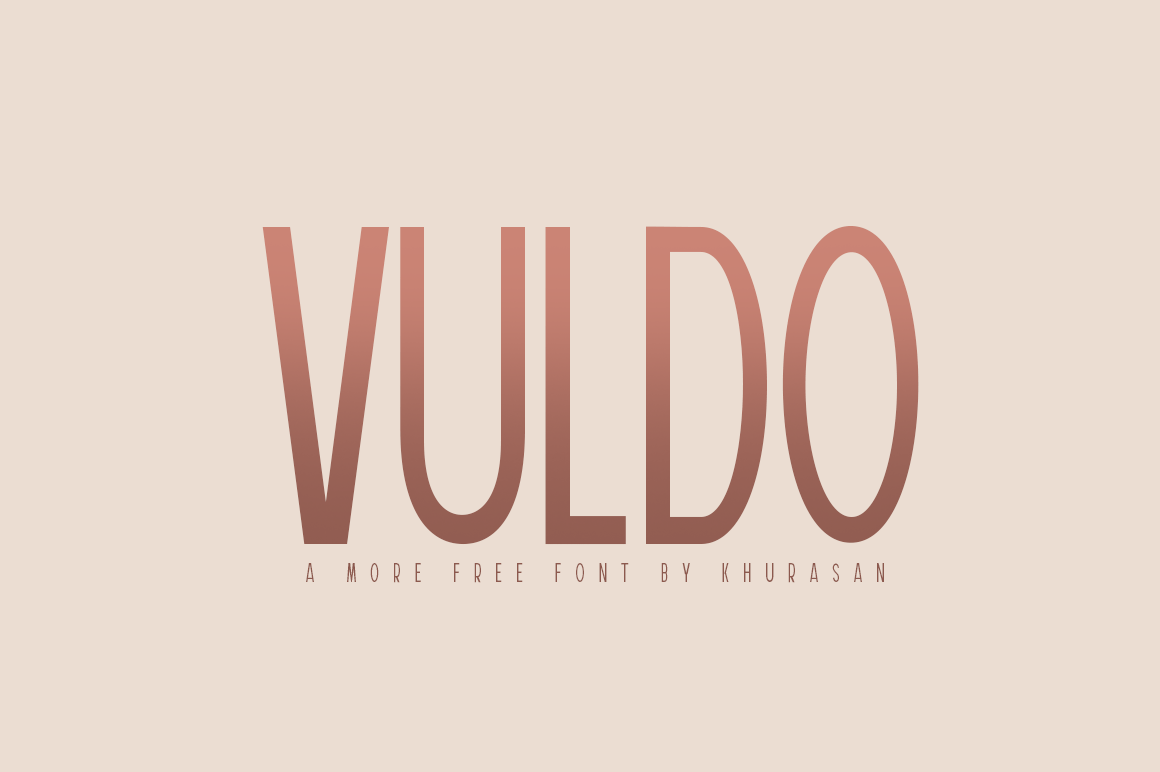
Introducing Vuldo Sans Serif Font, With a slightly more rectangular approach and some clever detailing, Vuldo font has a distinct look of its own, yet provokes a calming familiarity of neutrality and objectiveness.